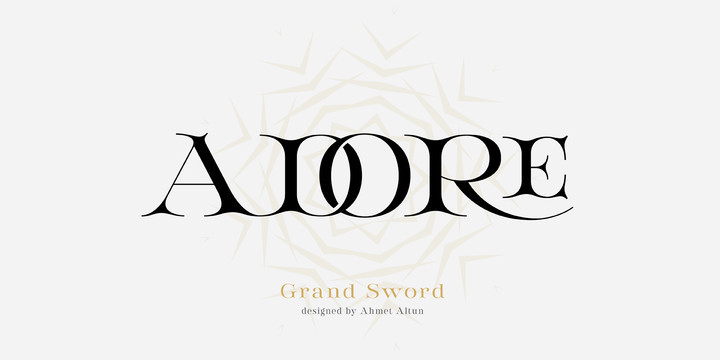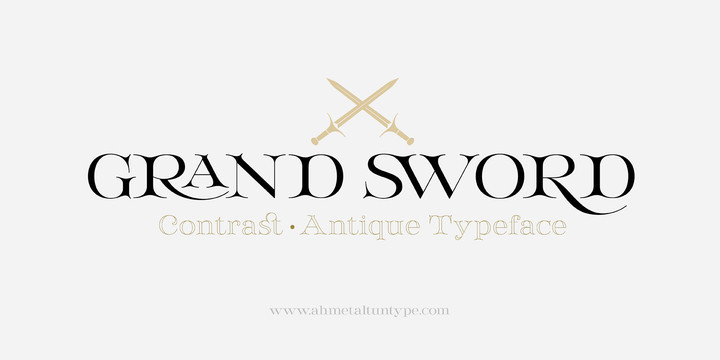
Grand Sword Font
Grand Sword is a wide serif and high contrast display font, which is inspired by the swords of the antique ages. There are two styles which are regular and outline. This font family also includes lots of eye-pleasing ligatures and alternatives. By using these opportunities of Grand Sword Typeface, you can create unique and stylish designs.